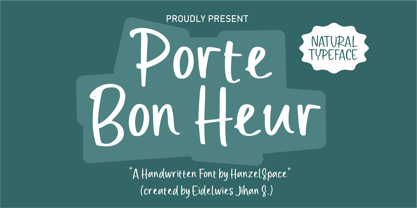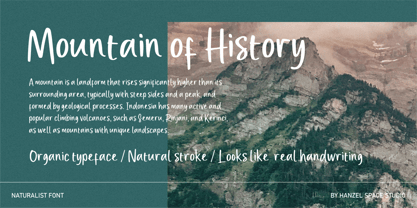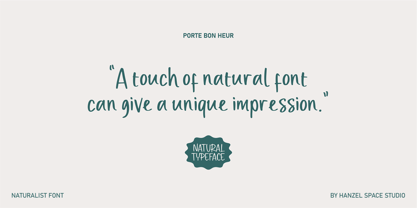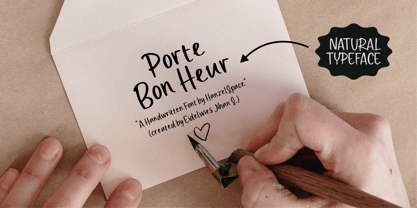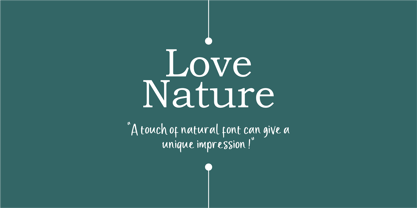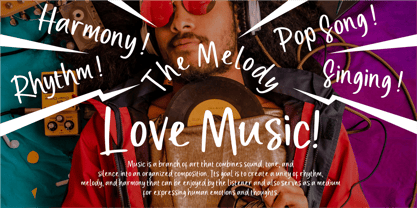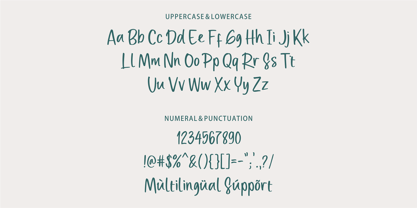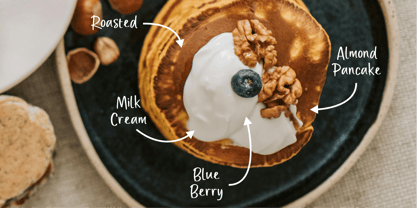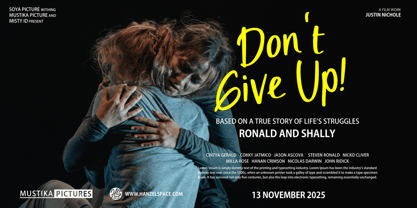
Porte Bon Heur
by Hanzel Space
The Porte Bon Heur Font Family was designed by Hanief Farandi and published by Hanzel Space. Porte Bon Heur contains 1 styles. More about this family
Porte Bon Heur - is a natural handwritten font with an expressive, slightly imperfect handwriting feel. This font presents a unique, authentic stroke. This type of font perfectly made to be applied especially in logo, headline, signage and the other various formal forms such as invitations, quote, books, greeting / wedding cards, packaging, magazines, fashion, make up, stationery, labels, novels, festival, event, labels or any type of advertising purpose.
Features:
• Uppercase & Lowercase
• Numerals & Punctuation
• Multilanguage Supports
Designers: Hanief Farandi
Foundry: Hanzel Space